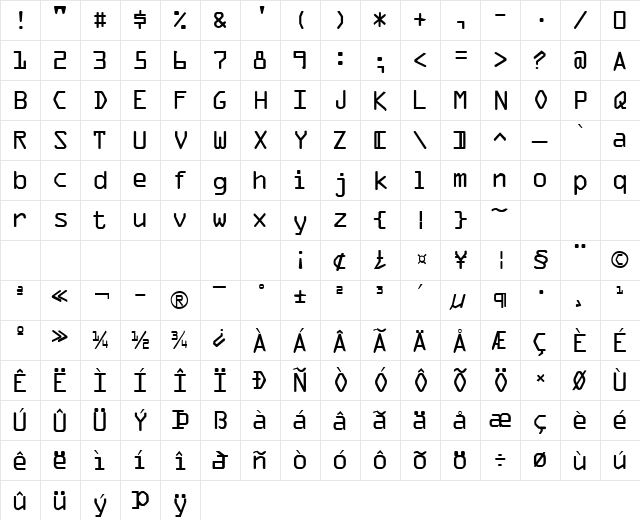
Optical C Normal
Design Context for Optical C Typeface
Optical C offers clean, dependable letterforms without strong stylistic allegiance, making it a practical choice for designers who need flexibility.